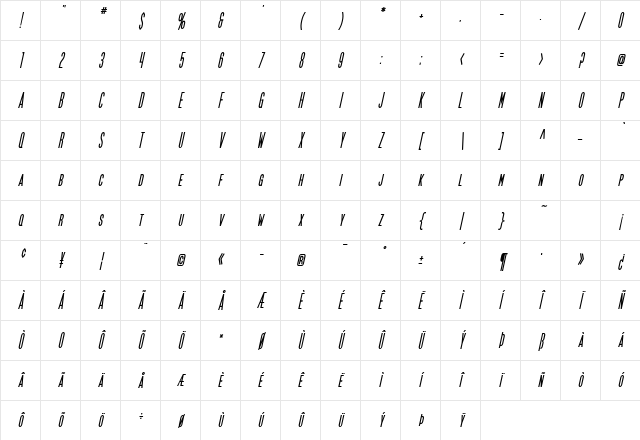
SF Movie Poster Condensed Bold Oblique
Style: Bold Oblique
Design Context for SF Movie Poster Condensed
SF Movie Poster Condensed is a composed and adaptable typeface that performs quietly and consistently across a wide range of design contexts. The slanted form adds forward momentum and visual energy. Its bold stroke weight gives it real presence on the page. Its narrow stance lets it pack a punch even in space-constrained designs.
Pro Tip: Use SF Movie Poster Condensed for emphasis, pull quotes, and subheadings where its slanted energy can add rhythm to the layout.